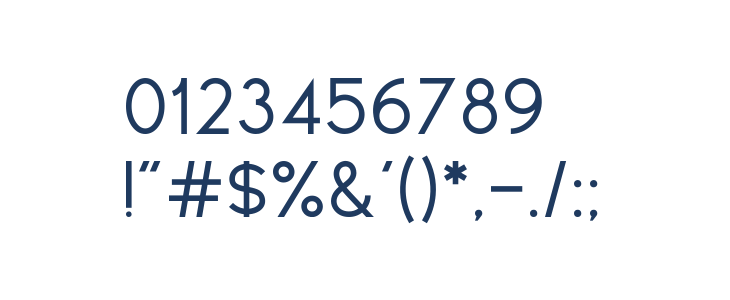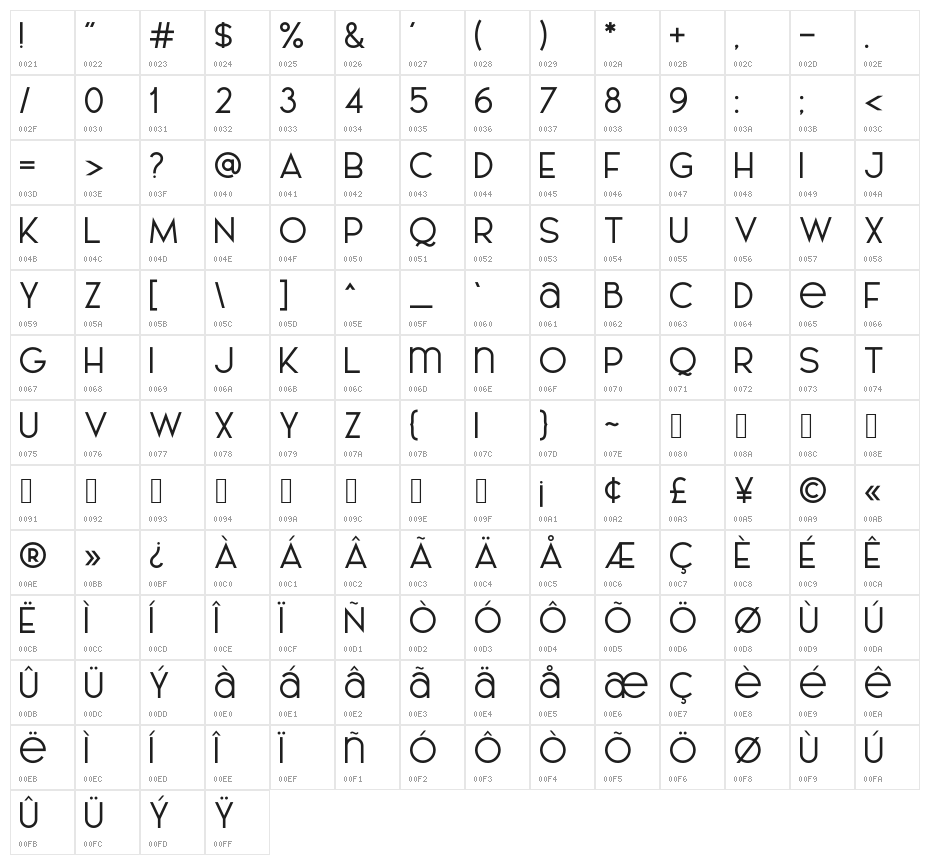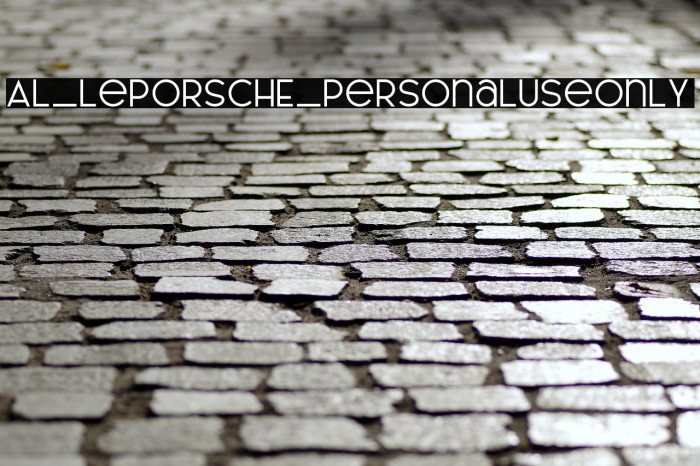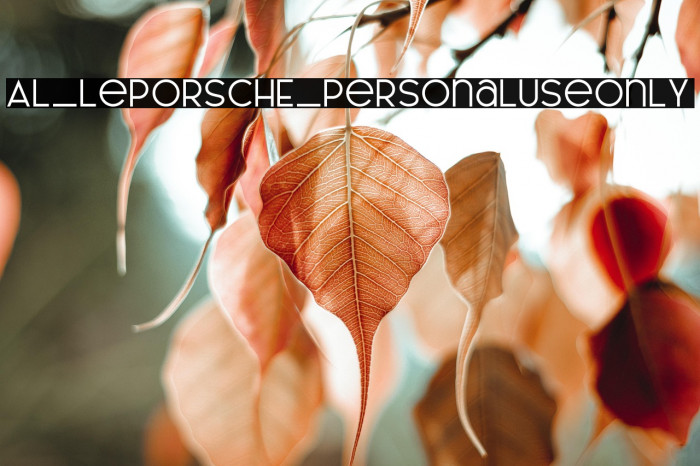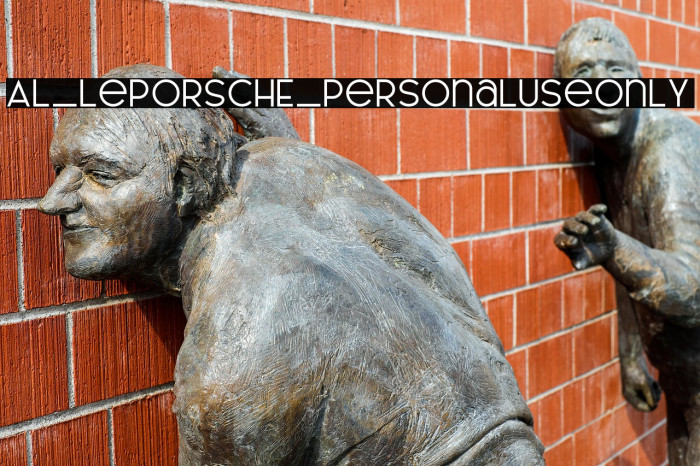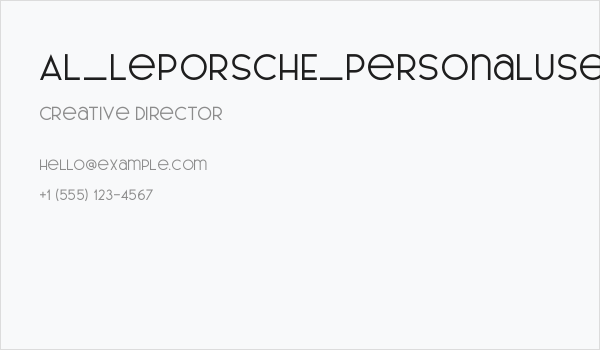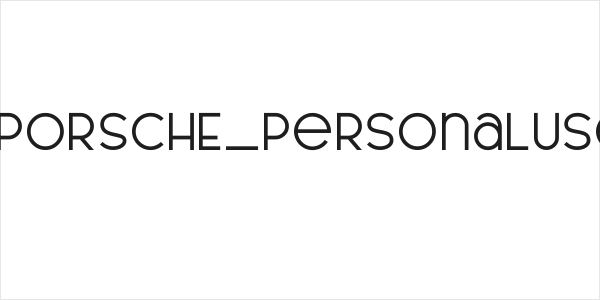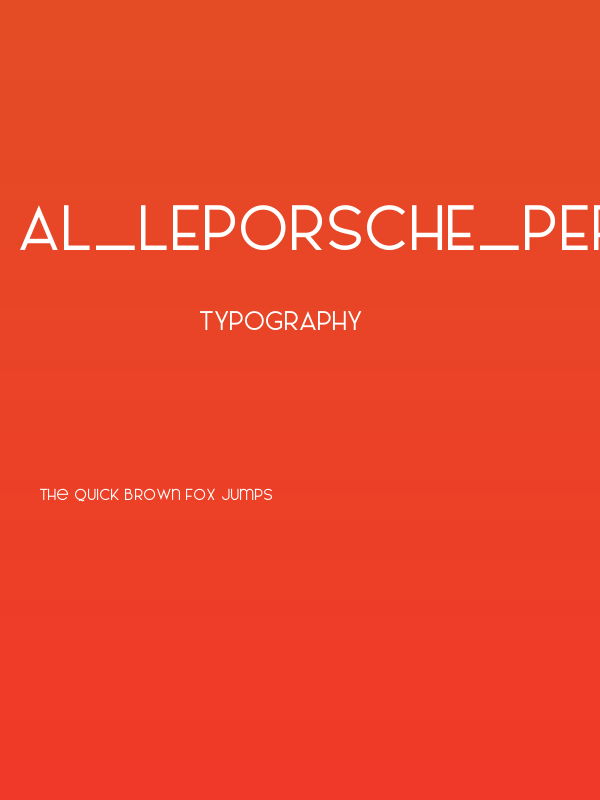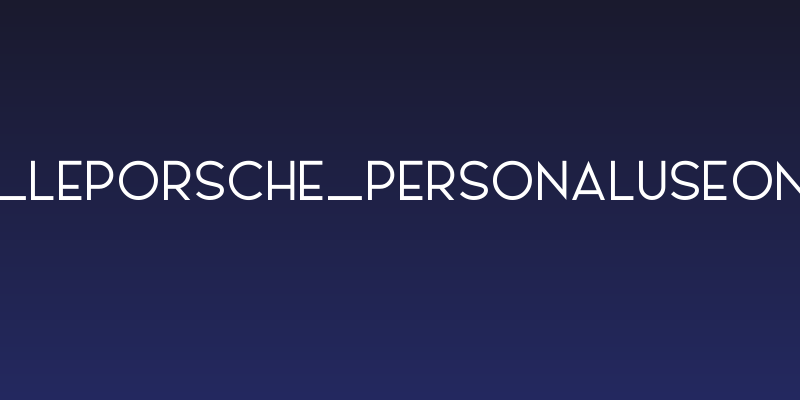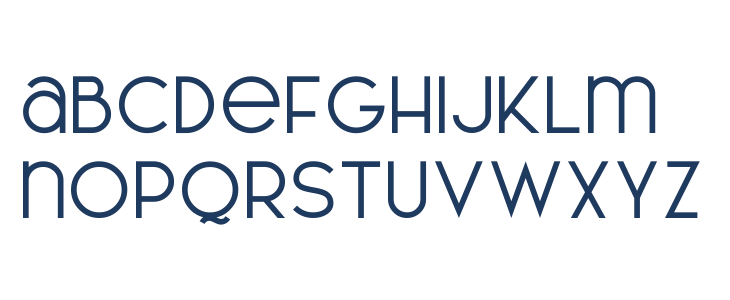
AL_LePORSCHE_PersonalUseOnly Font
AL_LePORSCHE_PersonalUseOnly Description
This font features a clean and modern sans-serif design, characterized by its geometric shapes and uniform stroke widths. The uppercase and lowercase letters maintain a consistent height, creating a harmonious and balanced appearance. The numerals are clear and easily distinguishable, making them suitable for various applications. Special characters are well-integrated, maintaining the overall aesthetic of the font. The design is minimalistic, emphasizing clarity and readability, making it ideal for contemporary design projects.